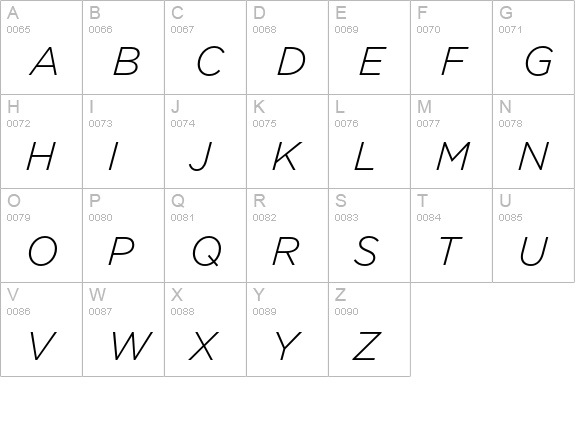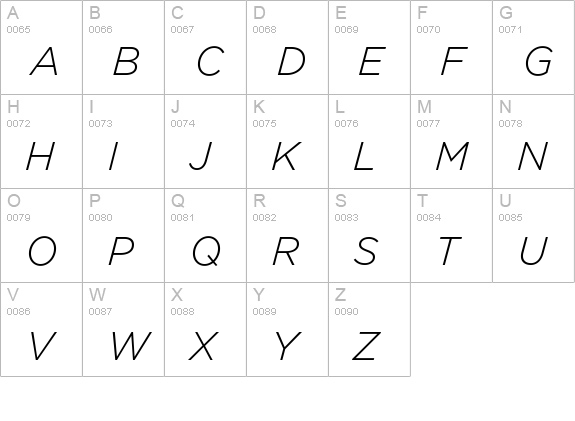
Gotham Light Italic Font Details
Gotham Light Italic is a refined, elegant, italic variant in the Gotham typeface family \xE2\x80\x94 well suited to elegant body text, refined sub-headings, and luxury branding.
Introducing Gotham Light Italic font, a sleek and sophisticated typeface that exudes elegance and modernity. The subtle slant of the italic version adds a touch of flair to the clean lines and minimalist design of the Gotham typeface family. Perfect for conveying a sense of refinement and professionalism, Gotham Light Italic is a versatile choice for a wide range of design projects. And the best part? Gotham Light Italic is available for free download at FontsMarket.com. Now you can easily access this stylish and impactful font to elevate your designs without breaking the bank. Don't miss out on the opportunity to add Gotham Light Italic to your font collection and enhance your creative projects with its timeless appeal. Download it today and start crafting visually stunning designs that stand out from the crowd.